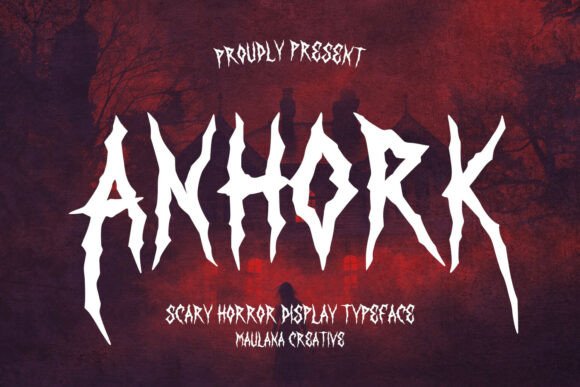
Anhork Font: The Ultimate Horror Display Font for Spine-Chilling Designs
Are you looking for a font that can evoke fear, suspense, and dark mystery in your designs? Look no further than Anhork, a terrifyingly bold horror display font that is perfect for creating unforgettable designs. With its jagged edges and sinister strokes, Anhork is the ideal choice for horror movie posters, Halloween flyers, dark branding, scary book covers, creepy games, and haunted house promotions.
The Menacing Quality of Anhork
Anhork’s sharp, distorted shapes give it a menacing quality that instantly grabs attention and creates spine-chilling vibes. The font’s jagged edges and sinister strokes are designed to evoke a sense of fear and unease, making it perfect for designs that require a bold and terrifying look. Whether you’re designing for a thriller, a metal band logo, or eerie social media graphics, Anhork brings the perfect balance of fear and style.
Perfect for Horror Movie Posters and Halloween Flyers
Anhork is the perfect font for creating eye-catching horror movie posters and Halloween flyers. Its bold and terrifying design ensures that your poster or flyer will stand out and grab attention. The font’s menacing quality is sure to evoke a sense of fear and excitement in your audience, making it perfect for promoting horror movies and Halloween events.
Dark Branding and Scary Book Covers
Anhork is also perfect for dark branding and scary book covers. The font’s bold and terrifying design ensures that your brand or book will stand out and grab attention. The font’s menacing quality is sure to evoke a sense of fear and unease in your audience, making it perfect for creating a dark and mysterious brand image or book cover.
Creepy Games and Haunted House Promotions
Anhork is also perfect for creating creepy games and haunted house promotions. The font’s bold and terrifying design ensures that your game or haunted house promotion will stand out and grab attention. The font’s menacing quality is sure to evoke a sense of fear and excitement in your audience, making it perfect for creating a creepy and terrifying game or haunted house experience.
Key Features of Anhork Font
• Bold and Terrifying Design: Anhork’s bold and terrifying design ensures that your designs will stand out and grab attention.
• Jagged Edges and Sinister Strokes: The font’s jagged edges and sinister strokes are designed to evoke a sense of fear and unease.
• Perfect for Horror Movie Posters and Halloween Flyers: Anhork is perfect for creating eye-catching horror movie posters and Halloween flyers.
• Dark Branding and Scary Book Covers: The font is also perfect for dark branding and scary book covers.
• Creepy Games and Haunted House Promotions: Anhork is perfect for creating creepy games and haunted house promotions.
Why Choose Anhork Font?
There are many reasons why you should choose Anhork font for your designs. Here are a few:
• Unique and Eye-Catching Design: Anhork has a unique and eye-catching design that ensures your designs will stand out and grab attention.
• Perfect for Horror and Dark Designs: The font is perfect for creating horror and dark designs that evoke a sense of fear and unease.
• High-Quality Font: Anhork is a high-quality font that is designed to ensure that your designs look professional and polished.
• Choose the Right Size: Choose a size that ensures your text is readable and eye-catching.
• Use it for Headlines and Titles: Anhork is perfect for headlines and titles. Use it to create eye-catching headlines and titles that grab attention.
• Experiment with Different Colors: Experiment with different colors to find the one that works best for your design.
Anhork font is a terrifyingly bold horror display font that is perfect for creating unforgettable designs. With its jagged edges and sinister strokes, Anhork is the ideal choice for horror movie posters, Halloween flyers, dark branding, scary book covers, creepy games, and haunted house promotions. Its bold and terrifying design ensures that your designs will stand out and grab attention. So why wait? Download Anhork font today and start creating spine-chilling designs that will leave your audience breathless.